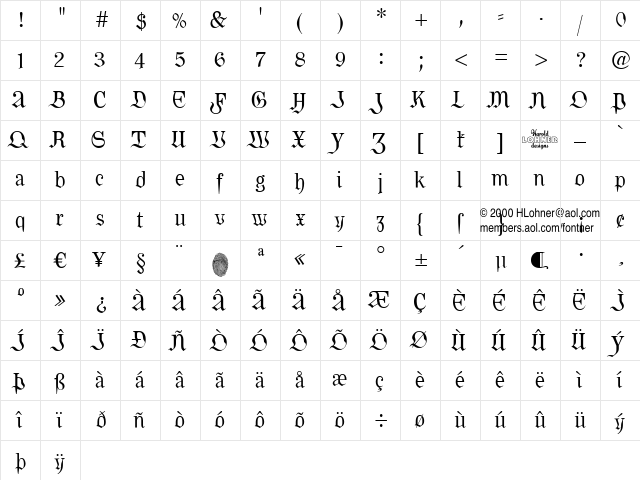
Kombine Regular
Design Context for Kombine Typeface
Kombine is a composed and adaptable typeface that performs quietly and consistently across a wide range of design contexts.